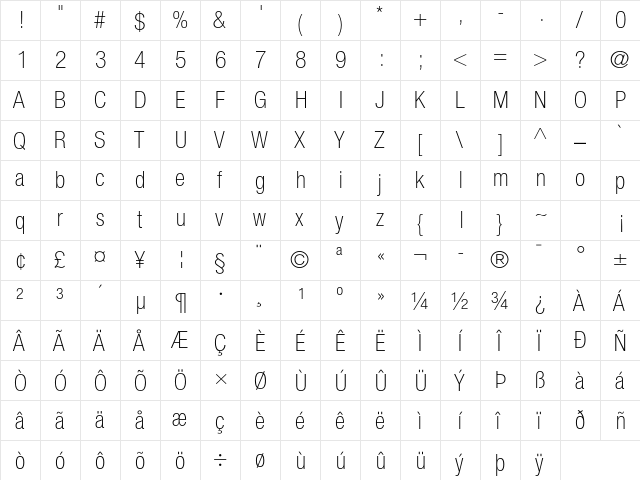
Helvetica Neue LT Pro 37 Thin Condensed Font Preview
| Foundry | Linotype Library GmbH |
| Designer | Linotype Library GmbH |
Design Context for Helvetica Neue LT Pro Typeface
Helvetica Neue LT Pro offers clean, dependable letterforms without strong stylistic allegiance, making it a practical choice for designers who need flexibility. The delicate stroke weight brings airiness and refinement to layouts. The condensed width makes it efficient for tight spaces without sacrificing legibility.